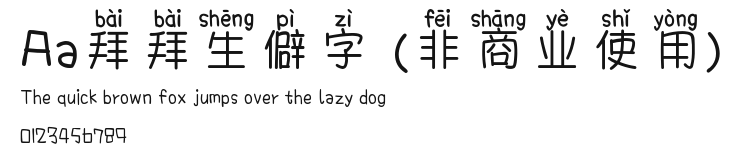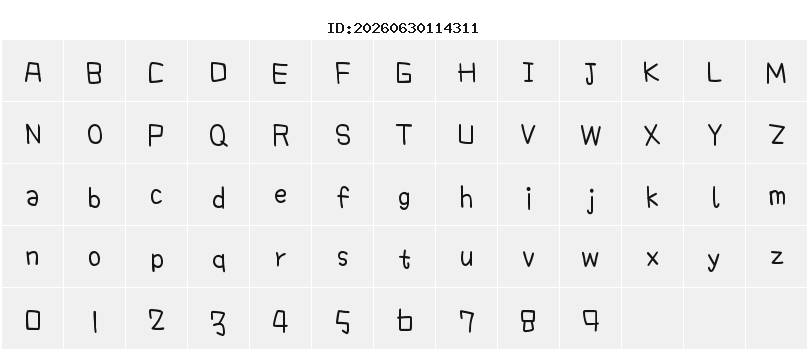
Aa拜拜生僻字 (非商业使用) Preview
• Font Name: Aa拜拜生僻字 (非商业使用)
• Font Style: 常规
• Font ID: 1.000;Aa;AaBaibaishengpizi (Non-Commercial Use);2018
• Full Font Name: Aa拜拜生僻字 (非商业使用)
• PostScript Name: AaBaibaishengpizi(Non-CommercialUse)
• Character Count: 12086
• Designer: Aa
• Manufacturer: 翰美互通(厦门)科技有限公司
• Description: AaBaibaishengpizi (Non-Commercial Use) is a fantastic font with excellent features designed for user interfaces and electronic communications.
About Aa拜拜生僻字 (非商业使用).ttf
Aa拜拜生僻字 (非商业使用).ttf is a modern, elegant sans-serif font designed for ultimate readability and visual harmony. Perfect for branding, headlines, web design, and print materials.